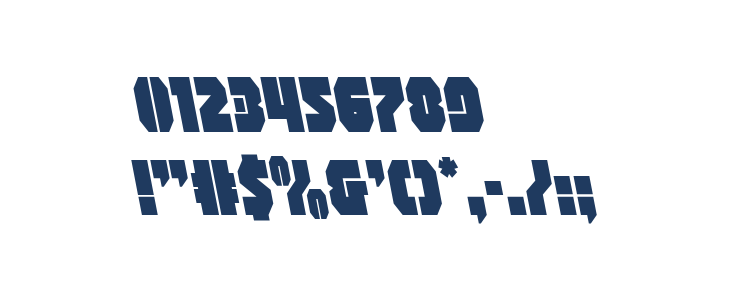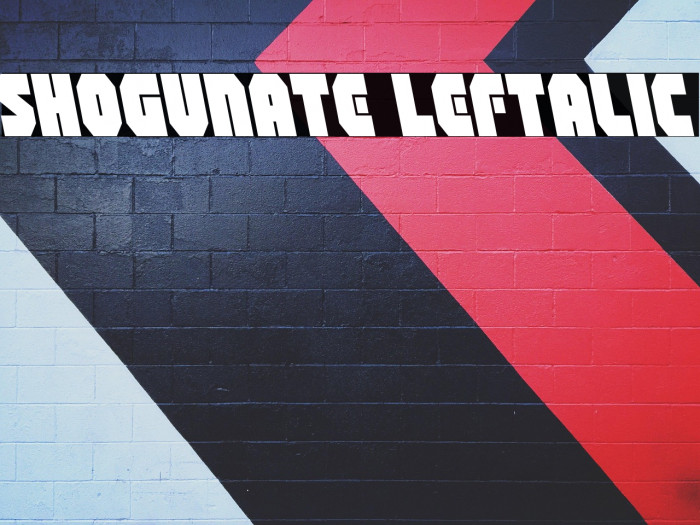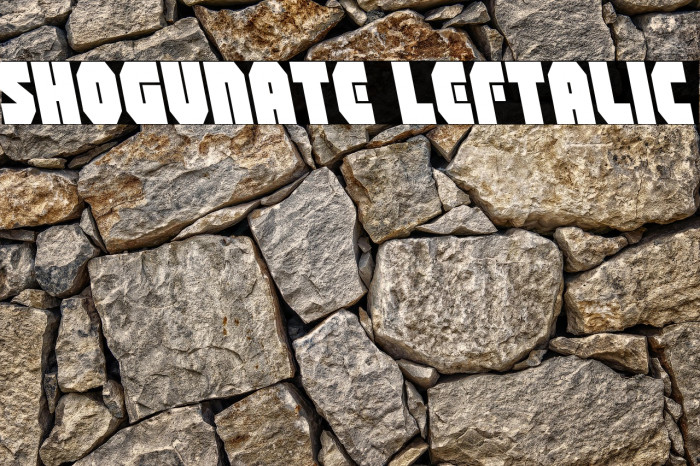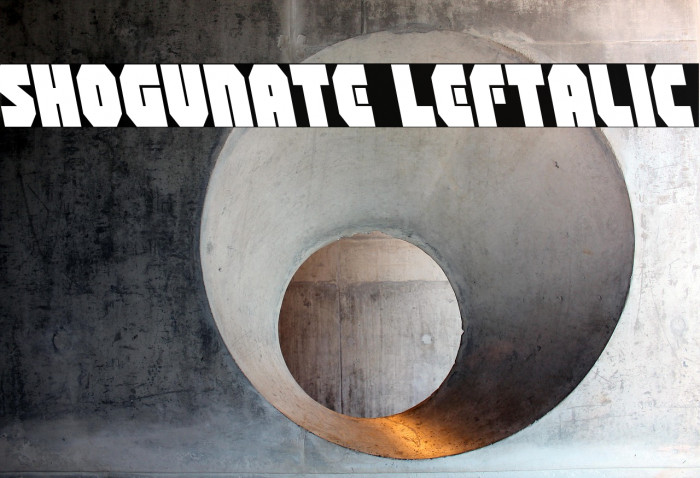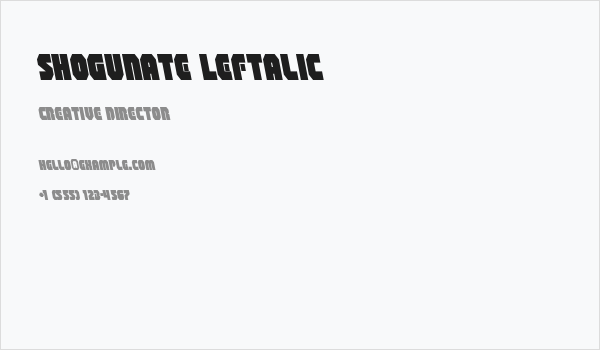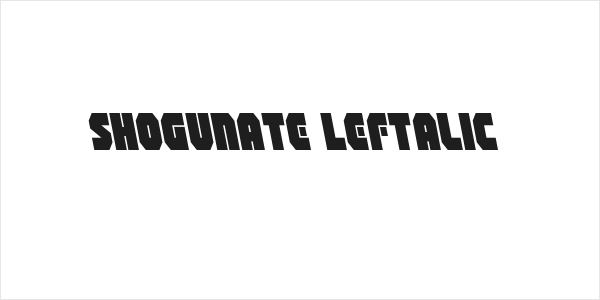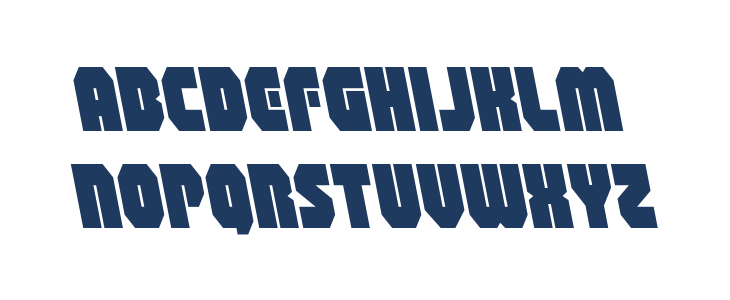
Shogunate Leftalic Font
Shogunate Leftalic Description
This font features a bold and striking design with angular, geometric shapes that give it a strong, impactful presence. The characters are heavily stylized with sharp edges and a blocky appearance, creating a sense of modernity and assertiveness. The uppercase and lowercase letters maintain a consistent width, contributing to a uniform look across the text. The numbers and special characters follow the same design principles, ensuring cohesion throughout. This font is ideal for projects that require a bold statement or a futuristic aesthetic.
| Proposed Projects | Ideal for branding, posters, video game graphics, and any project needing a bold, futuristic look. |